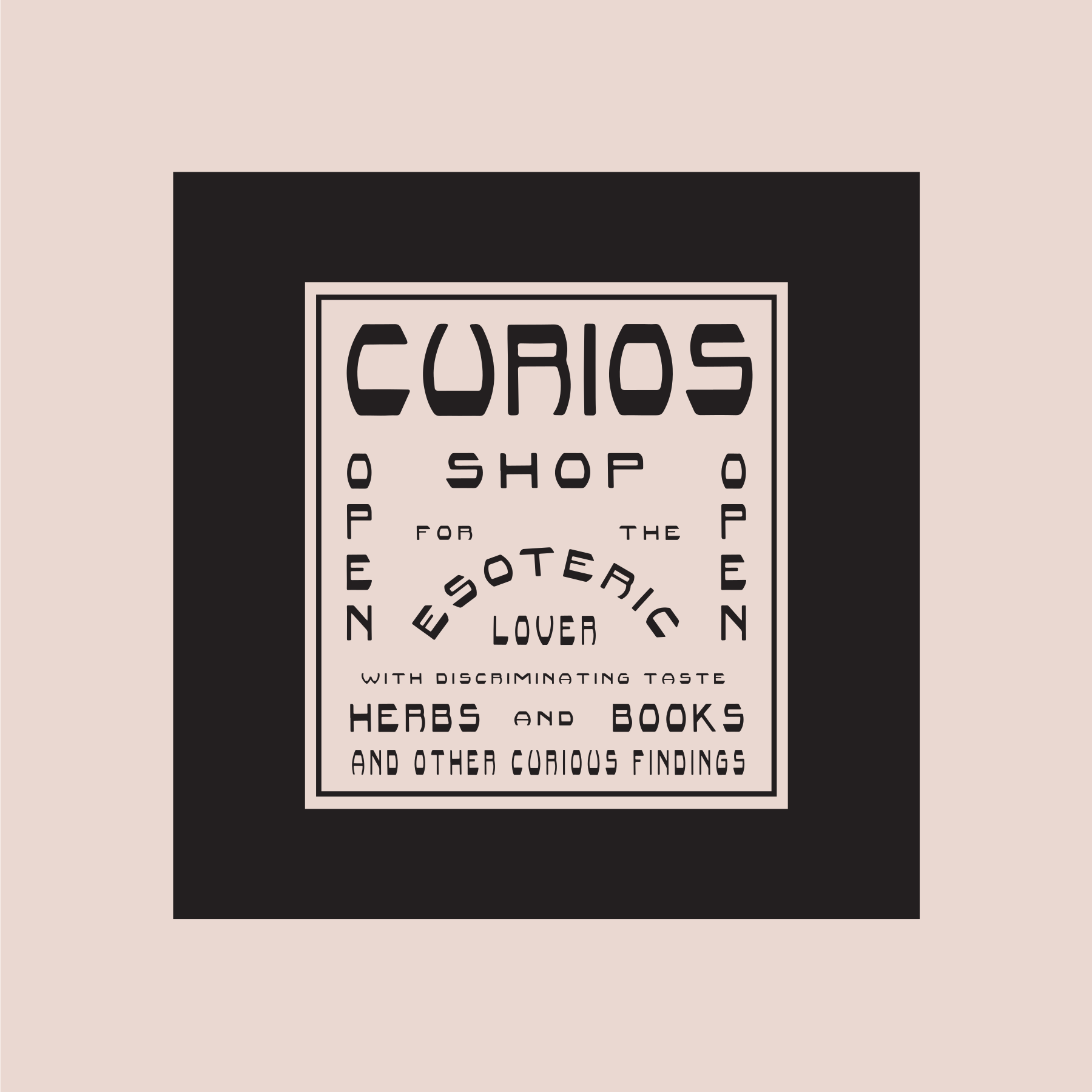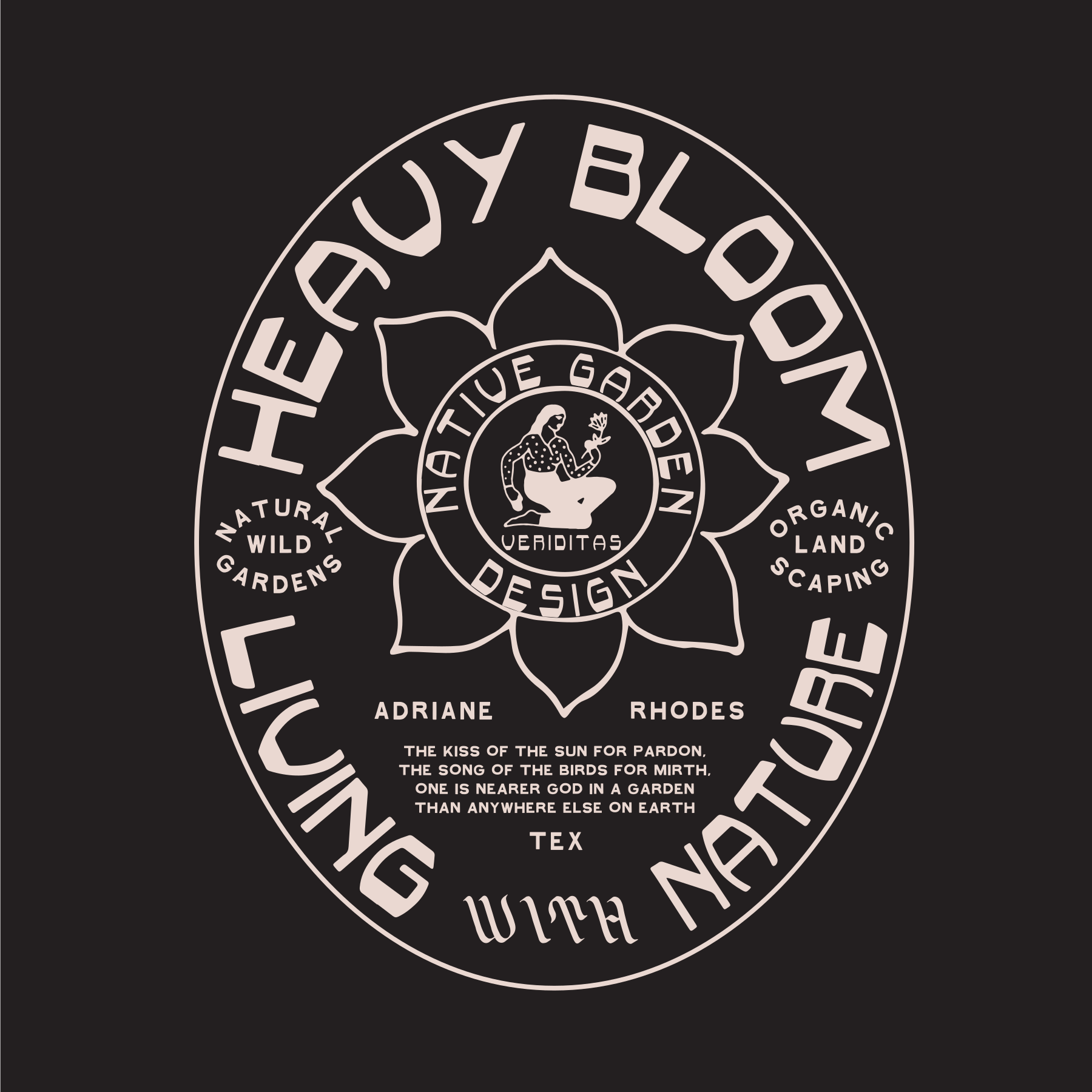
Curio
Dusted off from the lost vaults of time, this beloved type originally emerged from craftspeople who also dedicated their energies to painting hyper-realistic marble and wooden textures in the 1800’s. A truly universal style that could grace the halls and boutiques of any time and place.